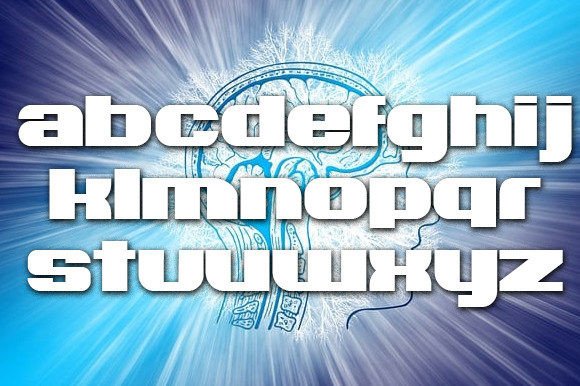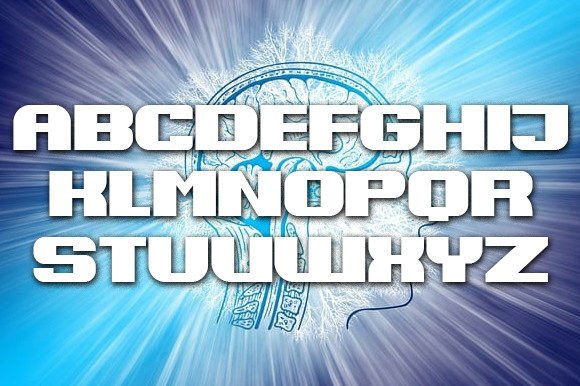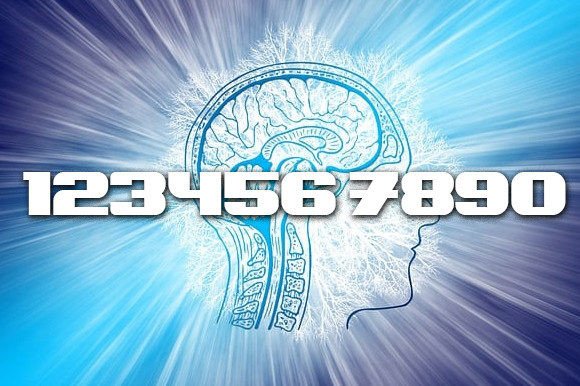
Introduction to Rethinked Font
Remember that moment when you’re brainstorming ideas for a new creative project, and you stumble upon the perfect font that takes it to the next level? For designers, finding the right font can be a game-changer. It’s the difference between a mediocre design and a truly eye-catching one. And, let’s be honest, who doesn’t love the feeling of discovering a new design resource that just makes everything click?
That’s exactly what we’re excited to introduce to you – the Rethinked Font. This bold sans font is perfect for your best projects, whether it’s a poster, flyer, or even a t-shirt design. Its clean lines, high-quality aesthetic, and transparent background make it a versatile choice for any creative endeavor.
Key Features of Rethinked Font
- Features a transparent background, allowing for seamless integration with backgrounds and images.
- Designed with precision and care, this font boasts a high resolution of 300 DPI, making it perfect for print and digital applications.
- Includes a large character set, covering a wide range of languages and characters, making it an ideal choice for multilingual projects.
- Perfect for designers and artists looking for a unique and creative font to elevate their designs, Rethinked Font offers a distinctive style and feel.
- With its high quality and free download, Rethinked Font is an excellent design resource for any creative project, from logos and branding to typography and more.
Honest Review: Rethinked Font
I recently came across the Rethinked Font, a free design resource that has been making waves in the creative project community. As a designer, I was excited to dive in and see what all the fuss is about.
Here’s what I liked about the Rethinked Font: ✨ High-quality typography that’s perfect for web and print designs. The font is incredibly versatile, with a wide range of styles and weights to choose from. I also appreciate the transparent background, which makes it easy to work with in graphic design software.
Here are some of the key features that stood out to me:
- Transparent background for easy editing
- Perfect for logos, branding, and creative projects
Overall, I’m impressed with the Rethinked Font. It’s a solid addition to any designer’s toolkit, and its high quality and versatility make it a great choice for creative projects. With a few minor limitations, I’d highly recommend giving it a try.
Rethinked Font
The Rethinked Font is a versatile design resource that can be used in various creative projects. It’s available for free download and features a high-quality design with a transparent background.
Tips for Getting the Most Out of Rethinked Font
Use the Rethinked Font in conjunction with other design elements to create a visually appealing design.
Experiment with different font sizes and colors to create a unique look.
The Rethinked Font is ideal for:
Business presentations and reports
Marketing materials and social media graphics
Personal projects and creative endeavors